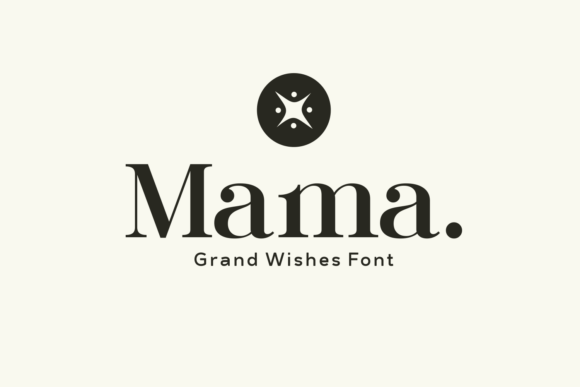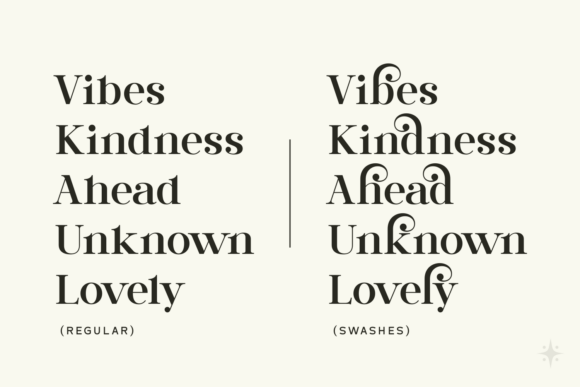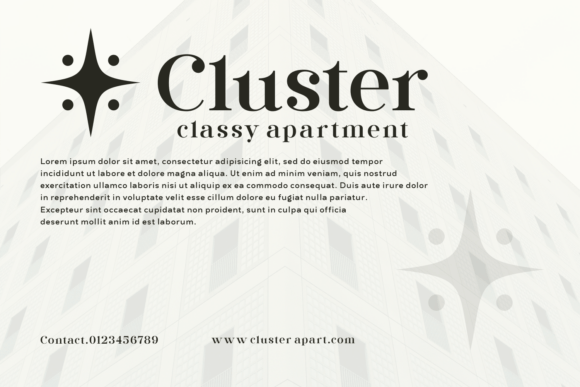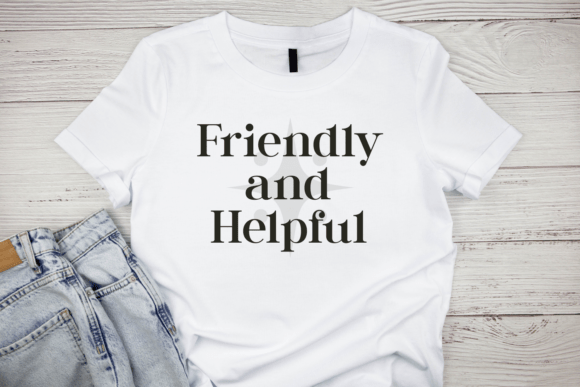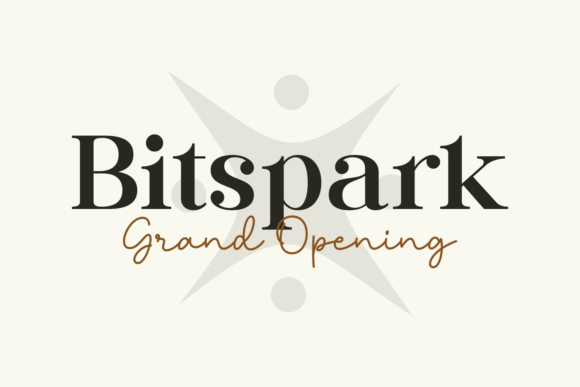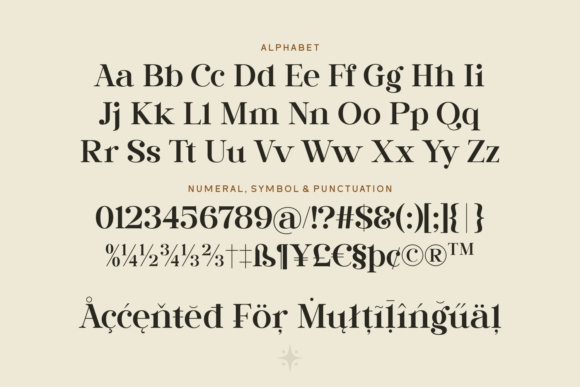
Introducing Grand Wishes Font – The Epitome of Elegance and Sophistication
In the realm of typography, few fonts have managed to capture the essence of luxury and elegance as effectively as Grand Wishes Font. This contemporary typeface is redefining the standards of class and sophistication, making it a go-to choice for designers and crafters seeking to infuse their projects with a touch of high-end style. With its unique blend of modernity and femininity, Grand Wishes Font is an exquisite addition to any creative endeavor.
The Unique Style of Grand Wishes Font
Grand Wishes Font boasts a distinctive style that sets it apart from other typefaces. Its elegant and refined appearance is characterized by flowing lines, subtle curves, and a sophisticated charm that exudes luxury. The font’s design is meticulously crafted to convey a sense of beauty and grace, making it perfect for projects that require a touch of high-quality typography. Whether you’re working on a branding campaign, a fashion magazine, or a high-end product label, Grand Wishes Font is sure to make a lasting impression.
A Harmonious Blend of Elegance and Modernity
What makes Grand Wishes Font truly special is its ability to strike a perfect balance between elegance and modernity. The font’s classic lines and refined features are infused with a modern twist, making it a versatile choice for a wide range of design applications. Whether you’re aiming to create a vintage-inspired look or a sleek, contemporary feel, Grand Wishes Font adapts effortlessly to your creative vision.
The Feminine Touch
One of the standout features of Grand Wishes Font is its feminine touch. The font’s delicate curves and subtle nuances evoke a sense of softness and sophistication, making it an ideal choice for projects that require a touch of elegance and refinement. From fashion and beauty brands to wedding and lifestyle blogs, Grand Wishes Font adds a touch of femininity and charm to any design.
Grand Wishes Font is a dream come true for designers and crafters seeking to elevate their projects with high-quality typography. The font’s versatility and adaptability make it suitable for a wide range of design applications, including:
• Branding and logos
• Fashion and beauty designs
• Wedding and event planning
• Lifestyle and travel blogs
• Product labels and packaging
Why Choose Grand Wishes Font?
With so many fonts available, why choose Grand Wishes Font? Here are just a few reasons why this typeface stands out:
• Unique style: Grand Wishes Font boasts a distinctive style that sets it apart from other typefaces.
• High-quality design: The font is meticulously crafted to convey a sense of luxury and sophistication.
• Feminine touch: Grand Wishes Font adds a touch of elegance and refinement to any design.
• Versatility: The font is suitable for a wide range of design applications.
In conclusion, Grand Wishes Font is a game-changer in the world of typography. Its unique blend of elegance and modernity, combined with its feminine touch, makes it a truly luxurious font that is sure to leave a lasting impression. Whether you’re a designer, crafter, or simply someone who appreciates high-quality typography, Grand Wishes Font is an excellent choice for any project. So why wait? Discover the beauty and sophistication of Grand Wishes Font today and take your designs to the next level.